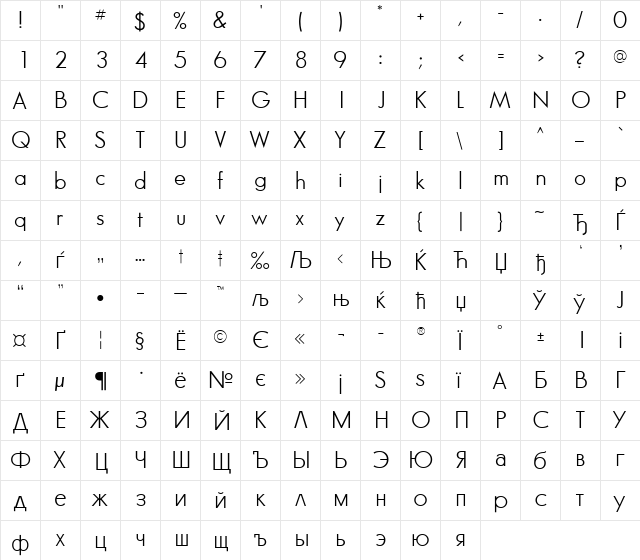
GlasnostLightFWF Regular
Design Context for GlasnostLightFWF Typeface
GlasnostLightFWF is a composed and adaptable typeface that performs quietly and consistently across a wide range of design contexts. The delicate stroke weight brings airiness and refinement to layouts.